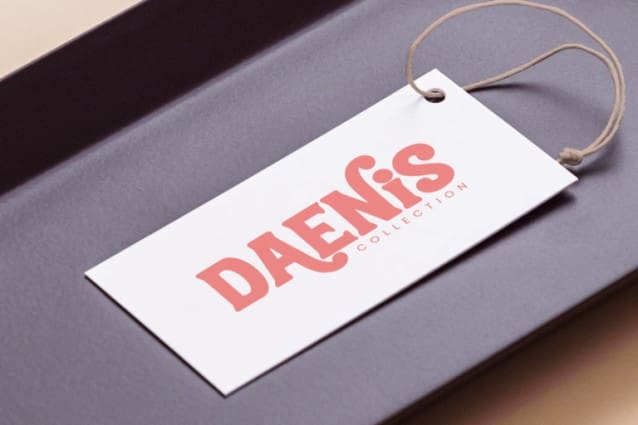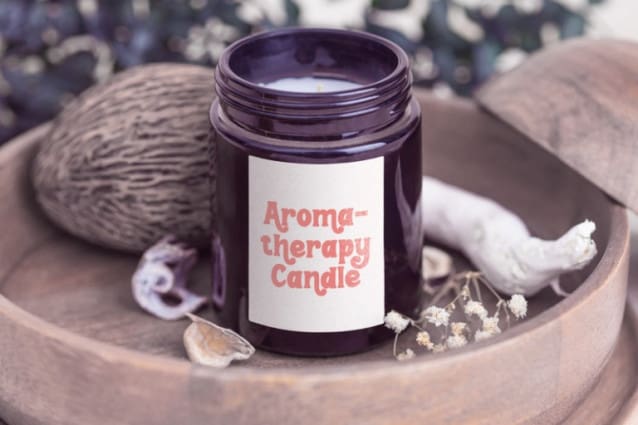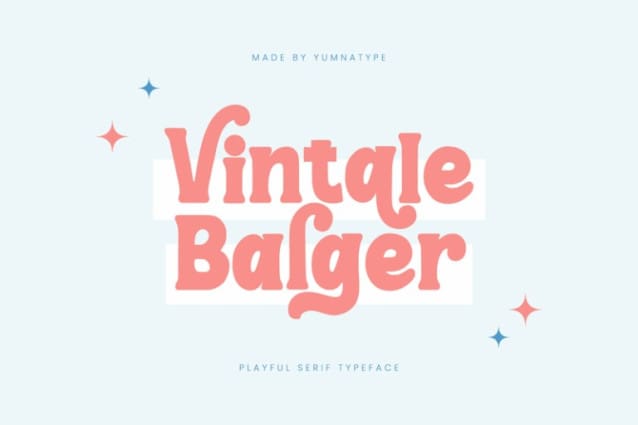
Vintale Balger Font
Vintale Balger Font is a whimsical serif display font that infuses playful charm into any design project. Crafted with meticulous attention to detail, VintaleBalger exudes a sense of whimsy and personality in every letter. Despite its thick weight and low contrast, the consistent proportions ensure that each character retains its readability and clarity. With its playful style and charming details, Vintale Balger adds a sense of joy and spontaneity to any project.